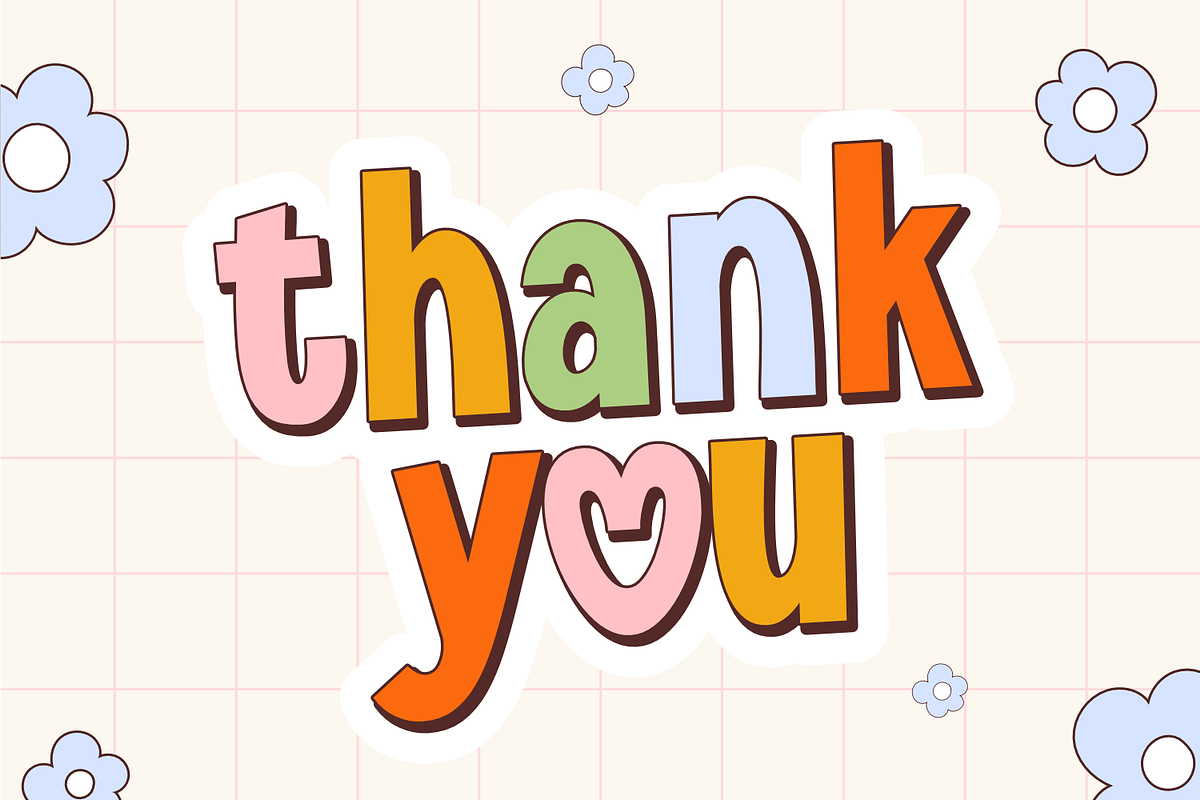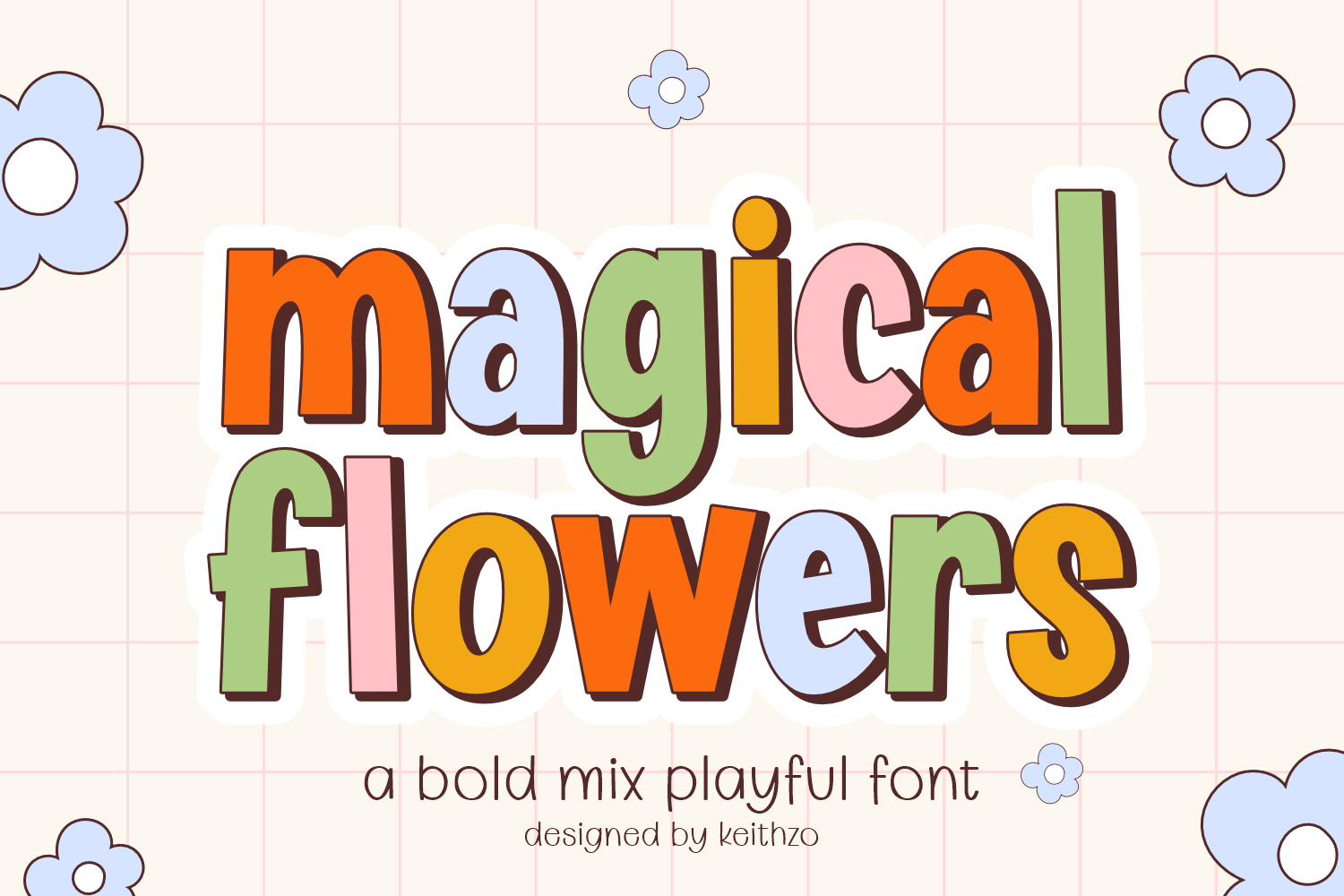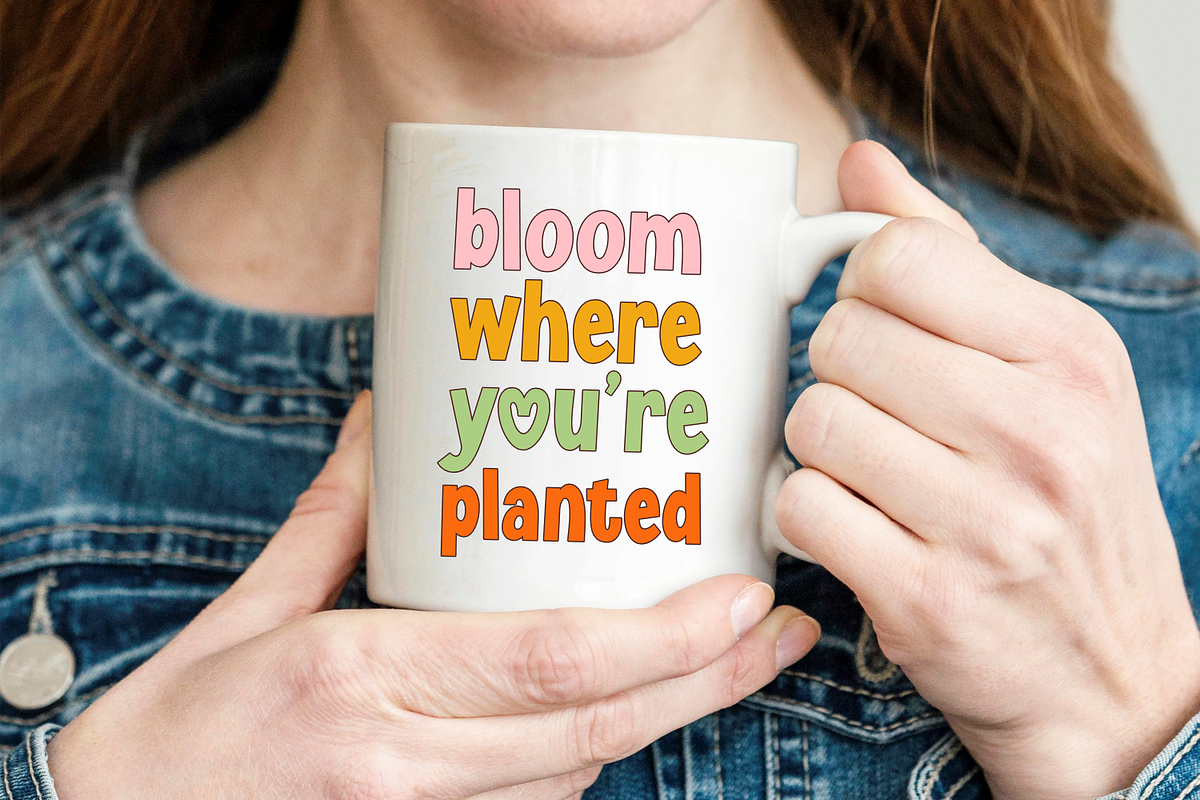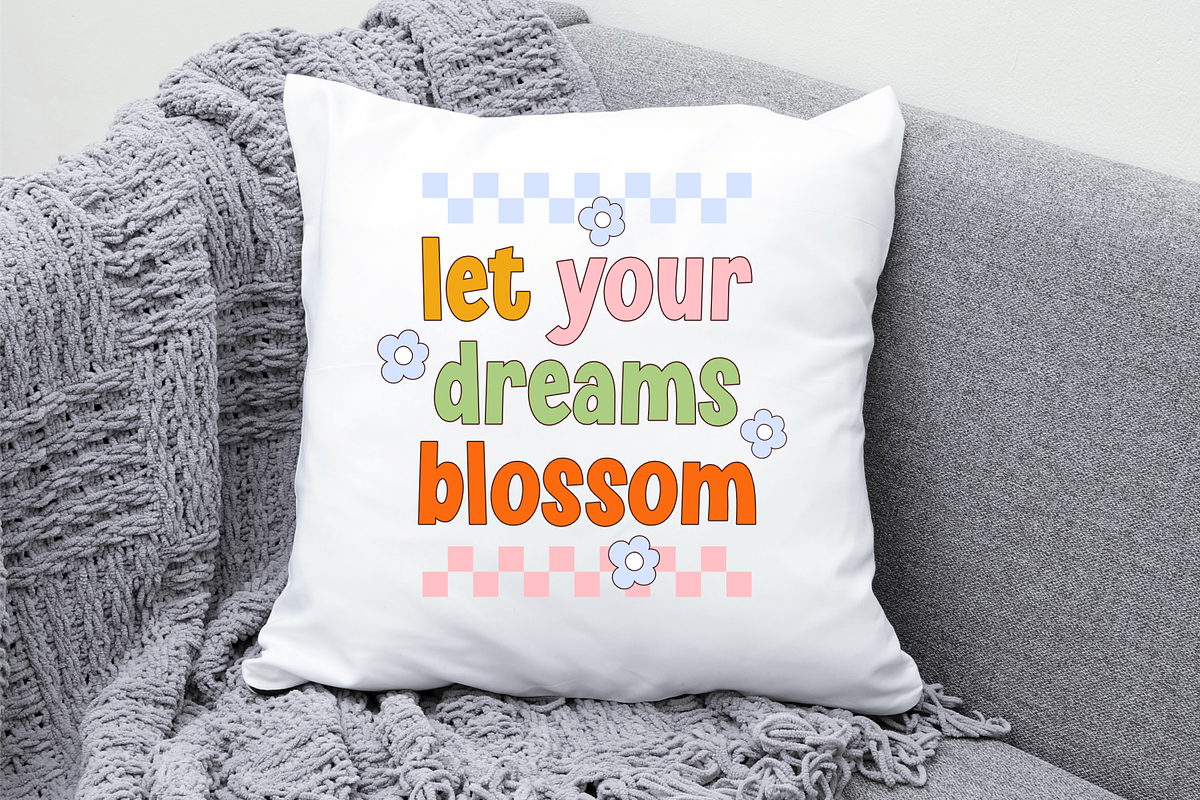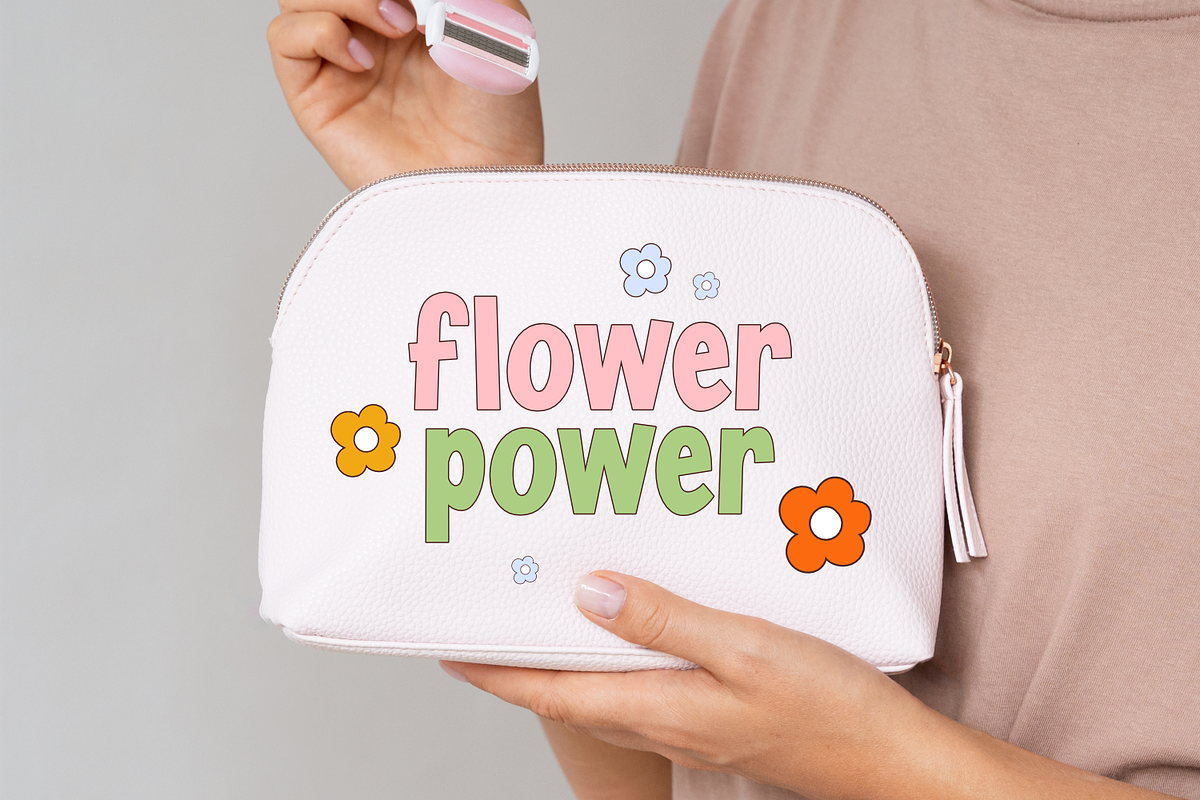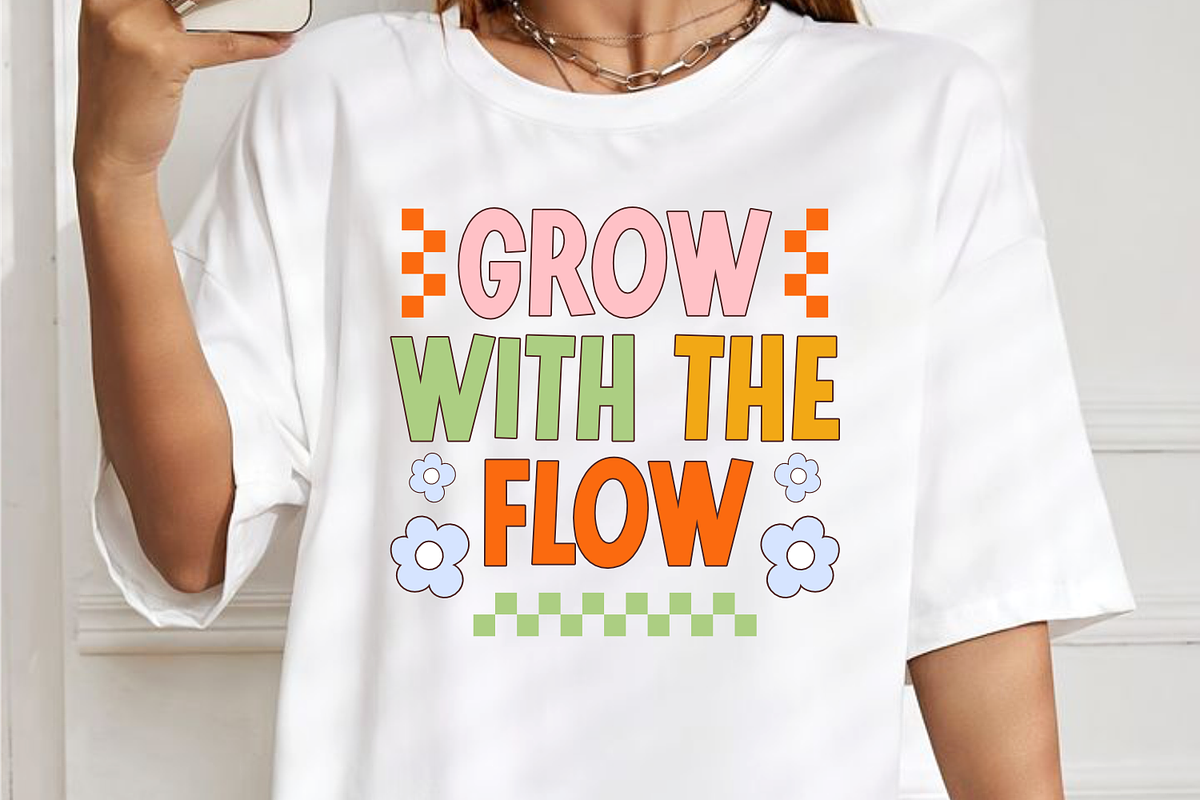
Magical Flowers - Playful Font
Magical Flowers is an exuberantly crafted font characterized by its spirited strokes and fanciful curves, creating a cheerful and joyous air. This striking blend of playful elements wonderfully reproduces the delightful sensation of foraging through a field of wildflowers on a sunny day. It’s an ideal choice for adding zest and vibrancy to t-shirts, mugs, pillows, and pouches, as well as greeting cards and children’s book designs. Imbue your creations with a sense of warmth and bliss with Magical Flowers.